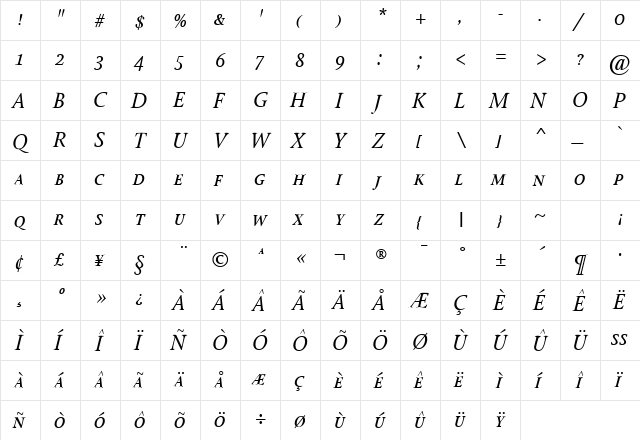
StonePrintSmallCaps Italic
Design Context for StonePrintSmallCaps Typeface
StonePrintSmallCaps offers clean, dependable letterforms without strong stylistic allegiance, making it a practical choice for designers who need flexibility. The slanted form adds forward momentum and visual energy.
Pro Tip: Use StonePrintSmallCaps for emphasis, pull quotes, and subheadings where its slanted energy can add rhythm to the layout.